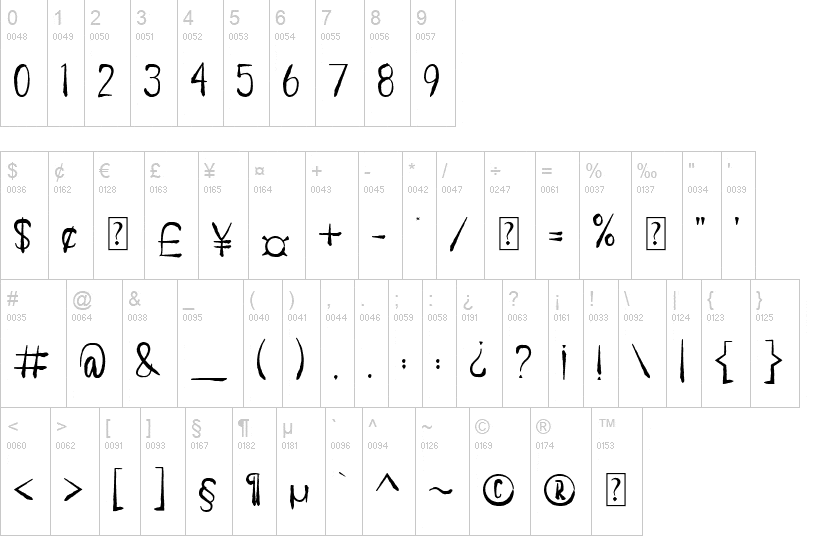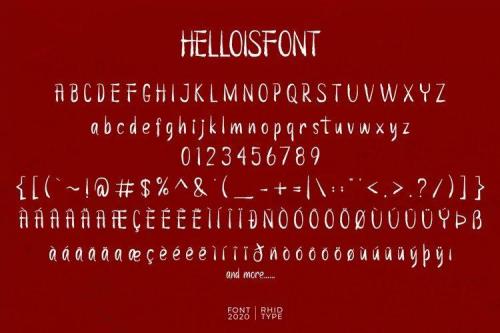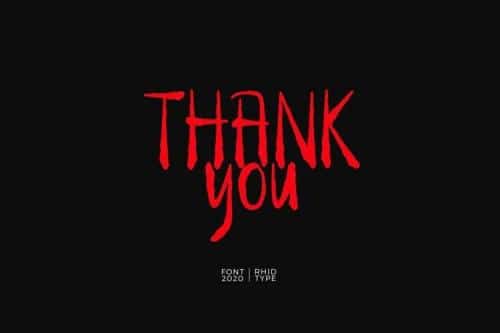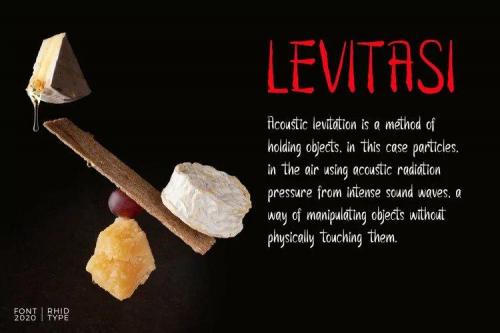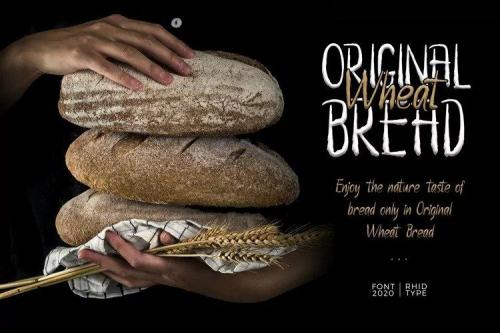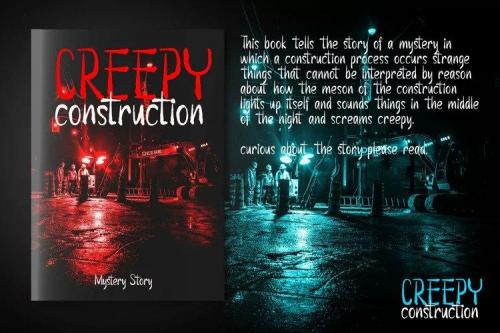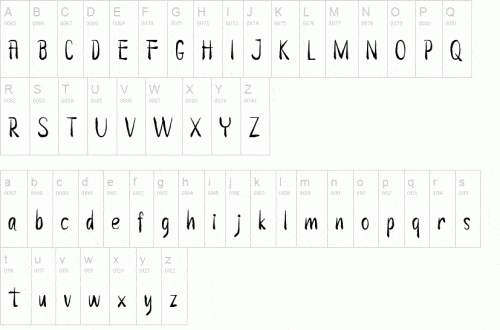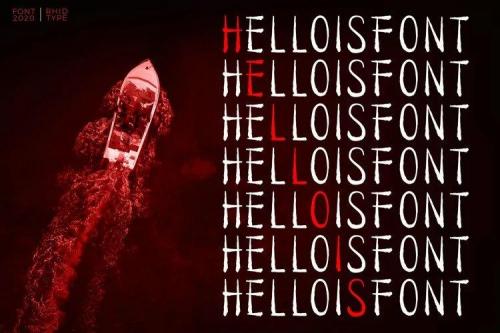
Helloisfont is a dramatic and horror display font. It can be added to a variety of Halloween designs or thematic parties. Add it confidently to your projects, and you won’t be disappointed.
- Designer: RHIDTYPE